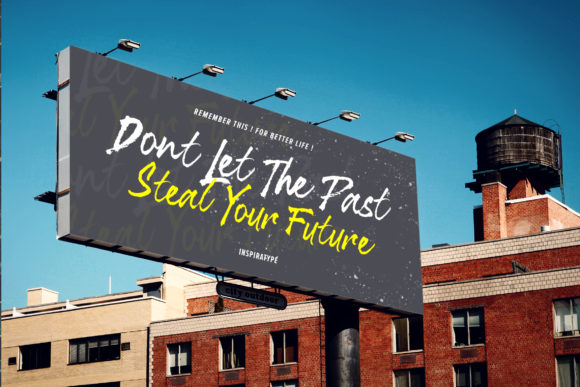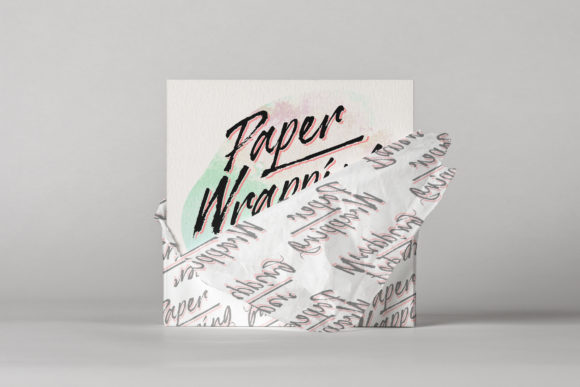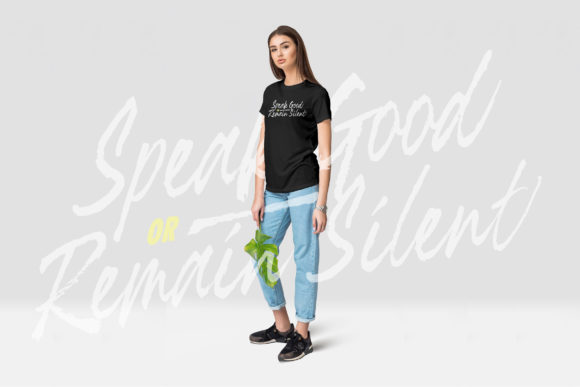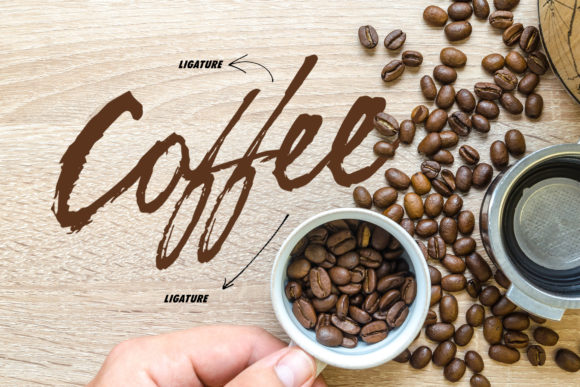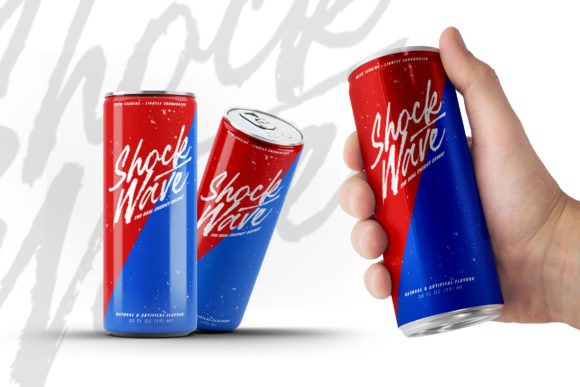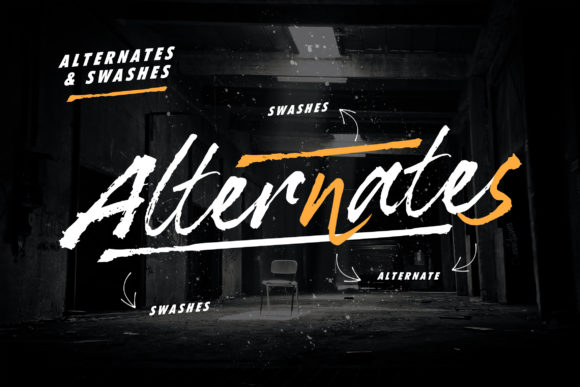
Introduction to Shockwave – Brush Font Font
Fonts play a crucial role in design, and the Shockwave – Brush Font font is a typeface that brings both character and versatility to any project. Whether you’re working on a branding project, a website, or a print design, the Shockwave – Brush Font font offers a unique style that can elevate your work.
Shockwave is a display font made by hand, inspired by classic posters.
This is the perfect font to use in you next designs Applications can range from t-shirts, posters, logos to anything you can think of.
Key Features of Shockwave – Brush Font Font
• ✅ High-quality typeface designed for professional use
• ✅ Includes a wide range of glyphs and characters
• ✅ Ideal for logos, branding, websites, and print
Why Choose Shockwave – Brush Font Font?
The Shockwave – Brush Font font is more than just a typeface – it’s a design tool that helps you communicate your message with style and clarity. Its unique character set and versatile design make it suitable for a wide range of applications, from elegant invitations to bold headlines.
With its carefully crafted letterforms and balanced proportions, the Shockwave – Brush Font font ensures readability and visual appeal across all mediums.
What makes Shockwave – Brush Font font special?
The Shockwave – Brush Font font stands out with its unique design, exceptional readability, and versatility across various design applications.